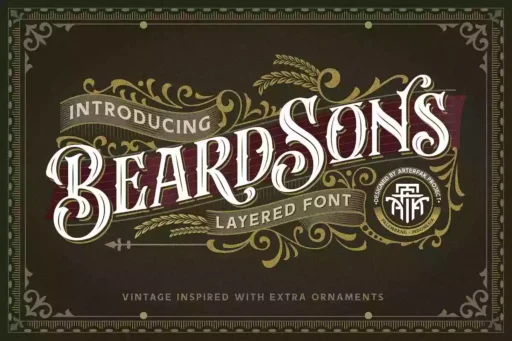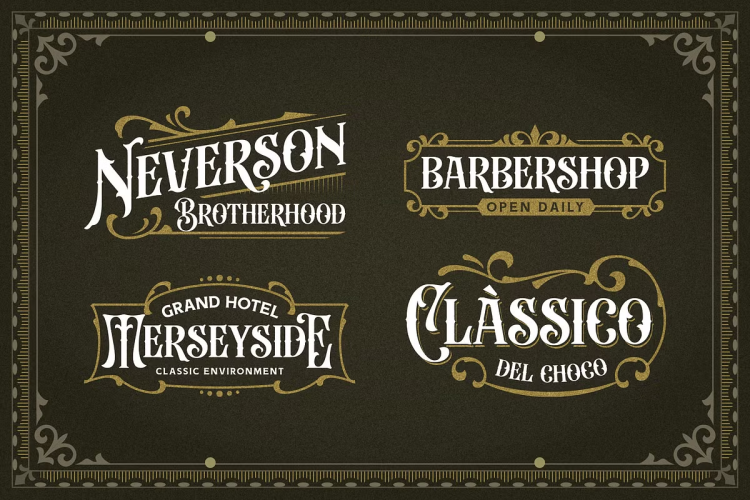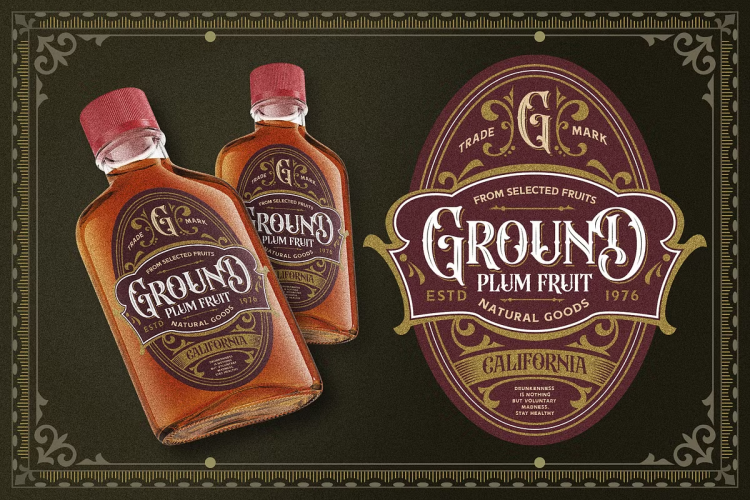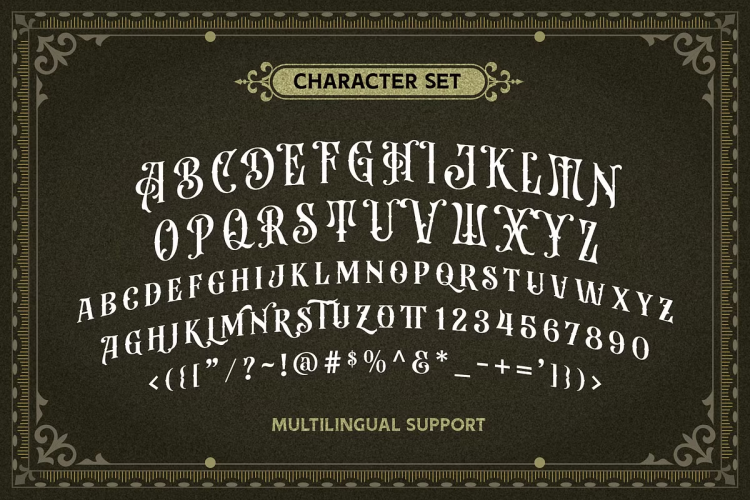
Beardsons Font
Introducing Beardsons, a layered decorative font by Arterfak Project, which draws its inspiration from vintage design to add nostalgic charm to your projects. Featuring three versatile styles: The layered font Beardsons presents three styles named Normal and Inline together with Shadow while drawing creative influences from vintage signage together with logos badges and historical graphics elements.
Designed with precise attention to display all-caps fonts possess an elegant visual emphasis suitable for multiple display uses. Users can handle all kinds of design needs from posters to labels to logos to signboards and t-shirts to book covers to decorations and merchandise with Beardsons. The product provides extended language capabilities while additional decorative features serve to enhance your project details.
Beardsons Font is a Display Fonts font that brings a professional and versatile look to your projects. Introducing Beardsons, a layered decorative font by Arterfak Project, which draws its inspiration from vintage design to add nostalgic charm to your projects.